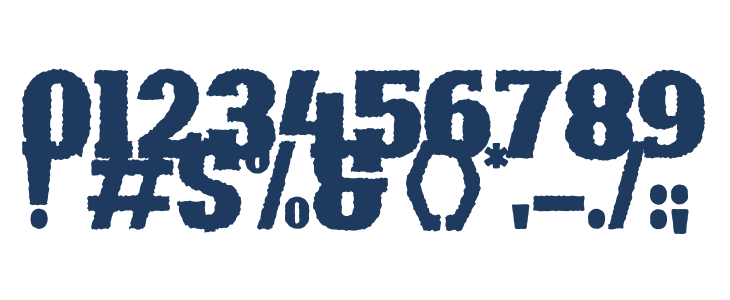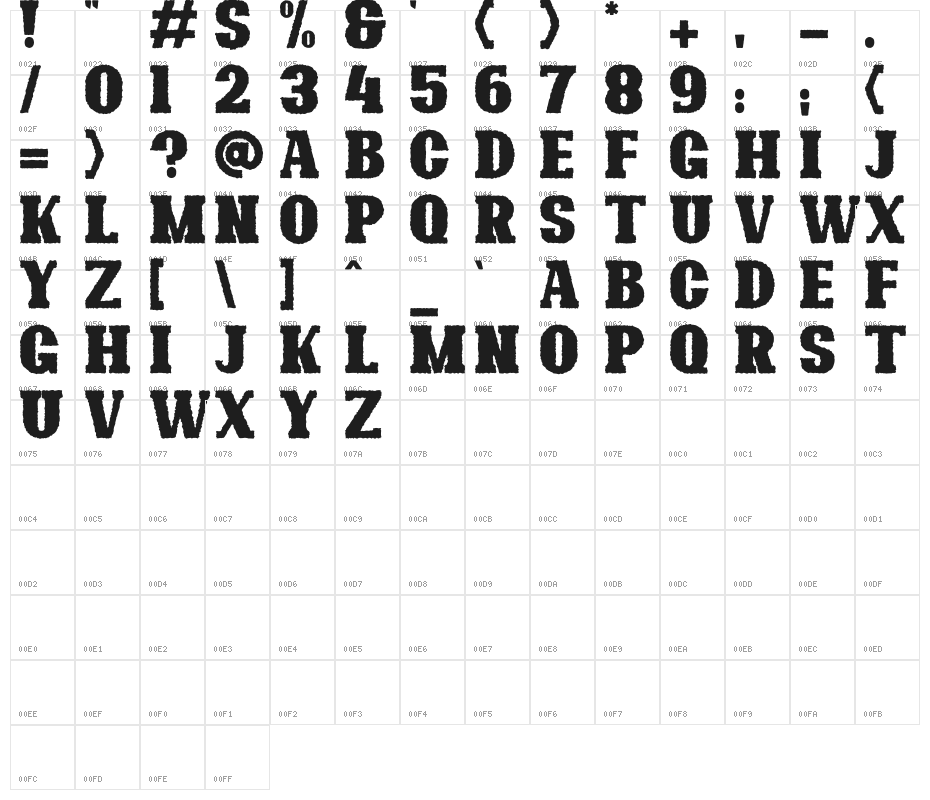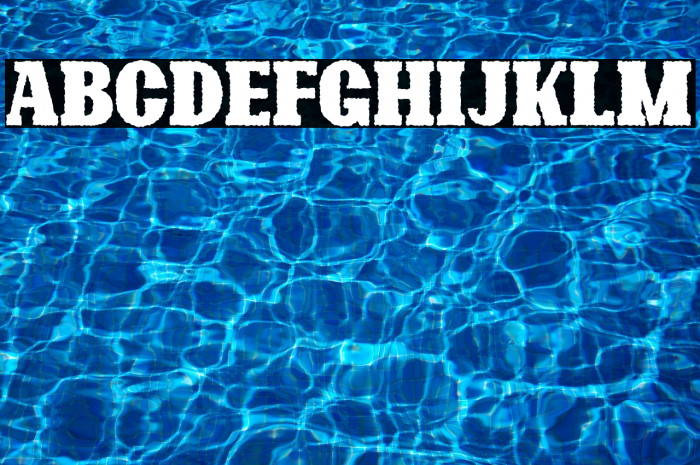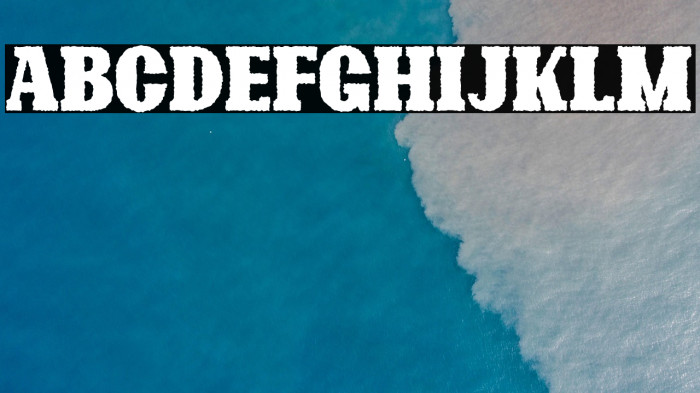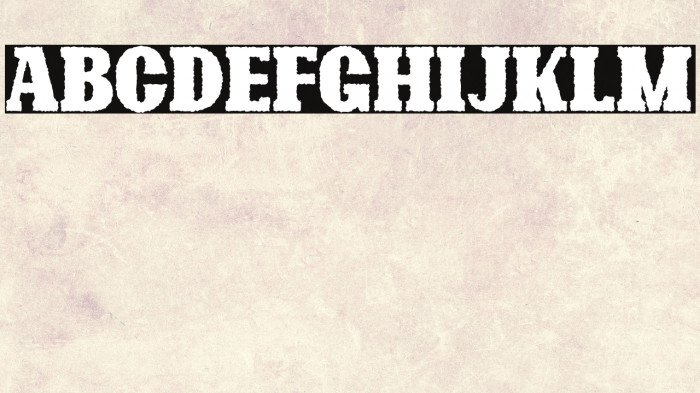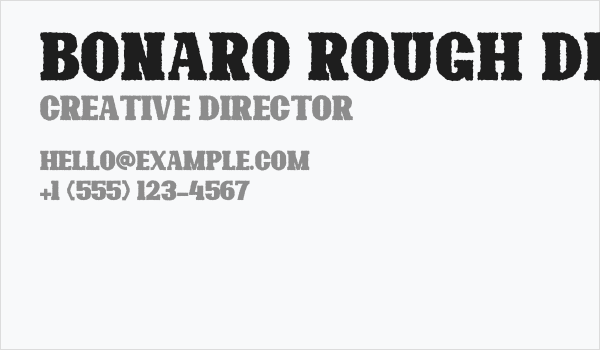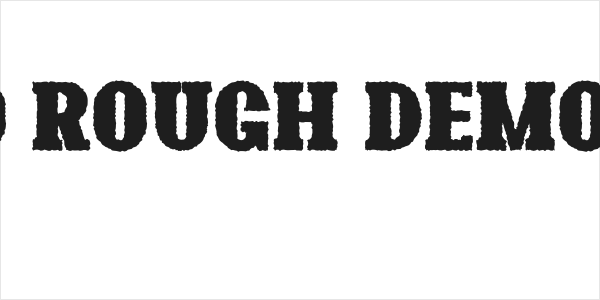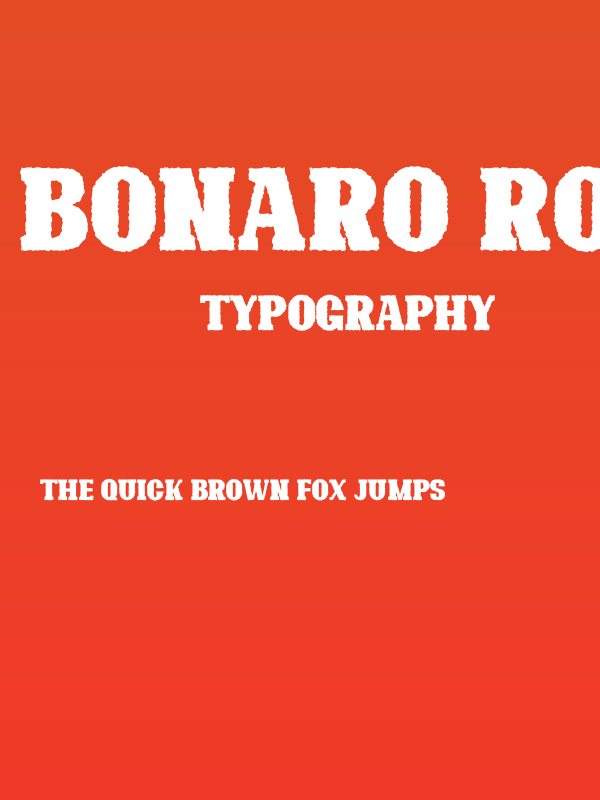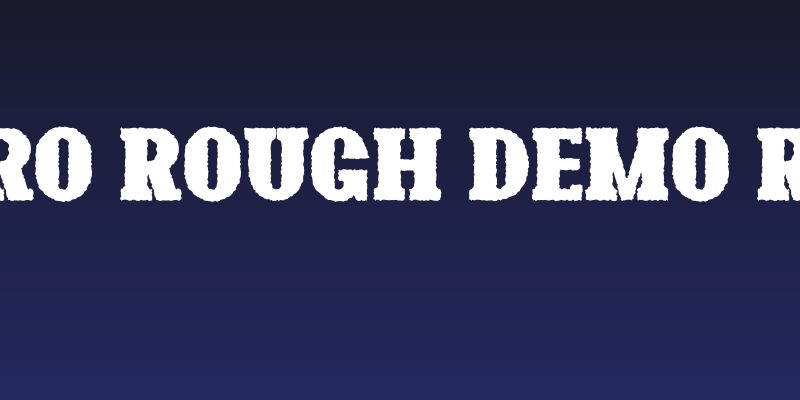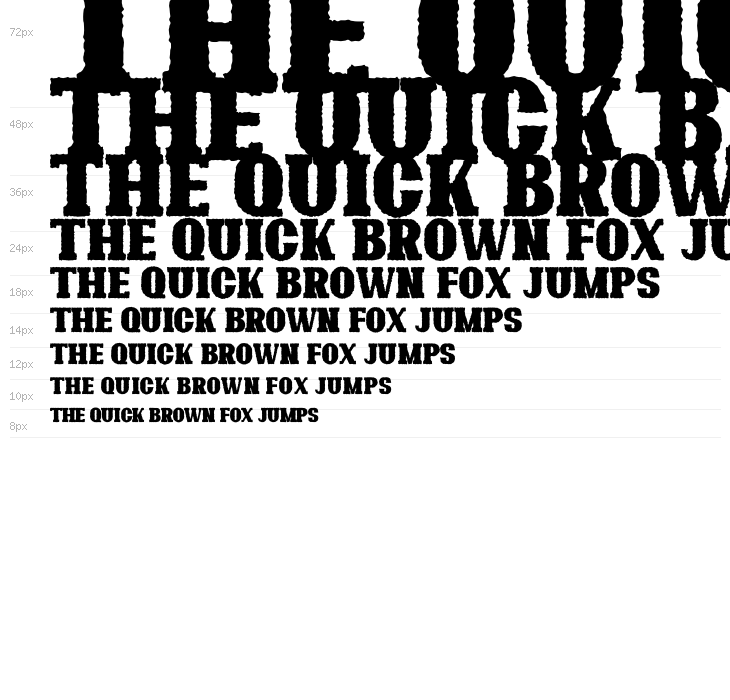
Bonaro Rough Demo Rough Font
Bonaro Rough Demo Rough Description
This font features a bold and rugged aesthetic, characterized by its rough, textured edges that give it a distressed and vintage appearance. The uppercase and lowercase letters maintain a consistent weight, providing a strong visual impact. The numerals and special characters follow the same design ethos, ensuring uniformity across all glyphs. Its boldness and rough texture make it ideal for projects that require a strong, eye-catching display font. The font's style is reminiscent of vintage posters and signage, offering a sense of nostalgia and authenticity.
| Overall Style | Vintage |
| Proposed Projects | Ideal for vintage-themed posters, signage, branding, and packaging designs that require a bold statement. |